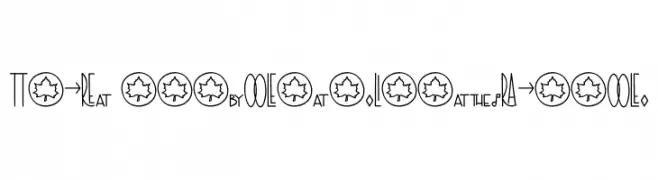
( Fonts by www.feorag.com )
A bold, decorative symbol font with esoteric and mystical icons.
( Fonts by www.haroldsfonts.com )
A nautical-themed symbol set inspired by maritime flags, featuring bold geometric designs.
( Juan Ramon Pastor OFF SITE )
A bold, geometric font with architectural and mathematical elements.
( Fonts by Mans Greback - www.mawns.com )
An elegant and ornate script font with flowing, decorative letterforms.
( Fonts by www.houseoflime.com )
The image contains decorative symbols, not a valid font.
( Fonts by Neale Davidson - www.pixelsagas.com )
A bold collection of pictographic symbols ideal for gaming and thematic designs.
An abstract, geometric font with artistic and symbolic character designs.
( Fonts by www.omniglot.com )
Abstract, symbolic, and geometric display font.
( Fonts by Izabela de Lima - elfadophotoscape.blogspot.com.br )
A decorative symbol set focused on diverse bracket and star designs.
Abstract decorative symbols, not a valid font.
( Fonts by Adien Gunarta - fontasticindonesia.blogspot.com )
A bold, iconographic font featuring culturally significant symbols.
( Fonts by Sara Lindberg )
A bold, playful handwritten font with a casual and friendly style.
Decorative, pictographic font with ancient, symbolic motifs.
A modern sans-serif font with clean lines and excellent readability.
A bold, geometric font with rounded edges and a modern style.
A decorative font with culturally inspired symbols and illustrations.
Symbolic flag-style font featuring peace signs.
A bold, angular font with a geometric, maze-like design.
( Matias Romero - matiasromero.deviantart.com/ )
A collection of historical symbols used for communication by itinerant workers.
( Sebastian - greekhouseoffonts.com )
A bold, double-outline font inspired by traditional Greek lettering, ideal for decorative and impactful designs.
( Woodcutter - woodcutter Manero - www.woodcutter.es )
A display font composed entirely of diverse trident symbols.
( hechicero - www.ff-omeganebula.com )
A decorative and intricate font with mystical, calligraphic elements.
( Digital Magic - www.graphicdesignplus.com/helen/digitalmagic/ )
The image contains decorative symbols, not a valid font.